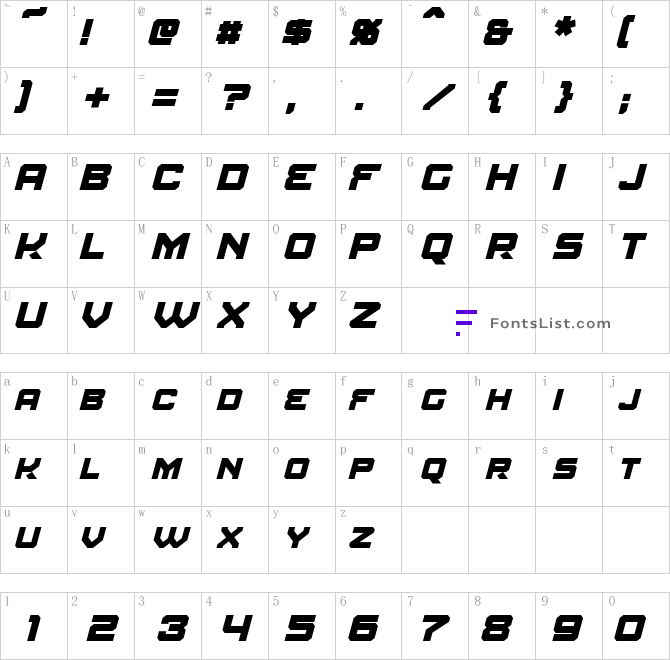
- Font Name:Amuro
- Subfamily:Amuro Bold Italic:Version 1.10
- Full Name:Amuro Bold Italic
Amuro-Bold-Italic.otf is a very beautiful artistic font, Amuro-Bold-Italic.otf is widely used in the design and printing of various books and pictures,Amuro-Bold-Italic.otf has a strong visual impact,Amuro-Bold-Italic.otf is a commonly used font in newspapers, magazines and books, and is used in posters, e-commerce Poster design, store design, logo design, font design and other fields.Amuro-Bold-Italic.